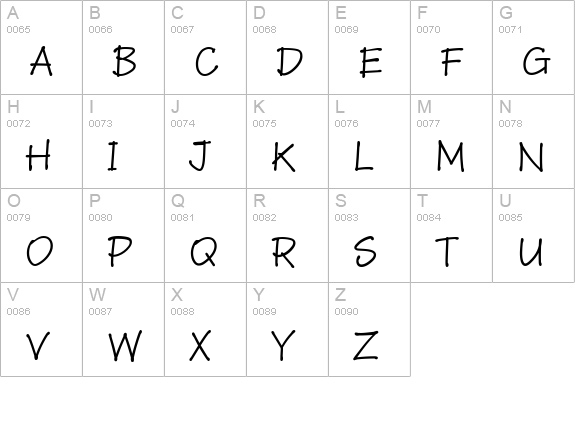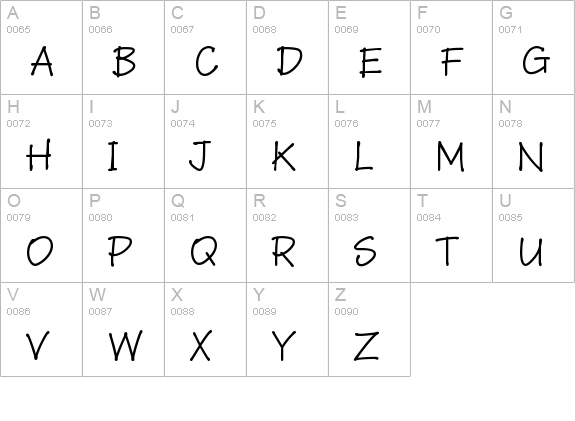
JanieHmk Font Details
JanieHmk font is a stunning display typeface that exudes elegance and sophistication. With its captivating curves and intricate details, this font is perfect for adding a touch of refinement to any design project. Designed with meticulous attention to detail, JanieHmk font offers a unique blend of modernity and classic charm. Its letterforms are beautifully crafted, making it a truly versatile font that can be used for both headlines and body text. What sets JanieHmk font apart is not just its aesthetic appeal, but also its accessibility. This font is freely available to download at FontsMarket.com, allowing designers and creatives to effortlessly incorporate it into their projects without any cost. Whether you're working on a logo, branding, packaging, or any other design project, JanieHmk font will undoubtedly elevate your work to new heights. Its timeless appeal and versatility make it suitable for a wide range of applications, ensuring that your designs will stand out from the crowd. With JanieHmk font, you can add a touch of sophistication and elegance to your designs, all while enjoying the freedom of using a high-quality font that is freely available to download. Don't miss out on this incredible opportunity to enhance your design toolbox and create stunning visuals that leave a lasting impression. Get JanieHmk font today, exclusively at FontsMarket.com.